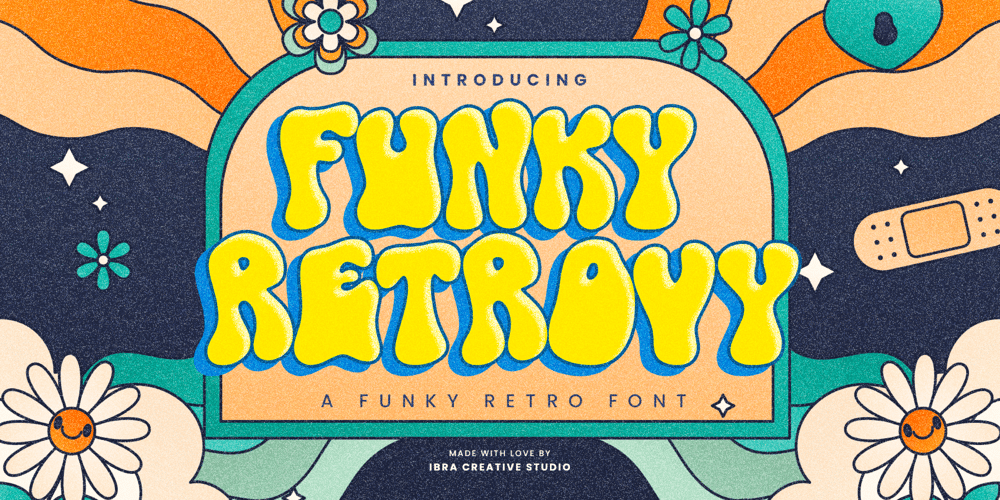
Funky Retrovy Font Family was designed by Roisatul Azizah and published by IbraCreative. Funky Retrovy contains 1 styles and family package options. Funky Retrovy is a groovy and energetic font that perfectly captures the essence of retro nostalgia. With its funky and whimsical letterforms, this typeface exudes a vibrant and carefree spirit reminiscent of the colorful era it celebrates. Each letter boasts bold and playful curves, inspired by the iconic designs of the past. Funky Retrovy adds a touch of fun and funkiness to any project, making it ideal for eye-catching posters, vibrant branding, and retro-themed party invitations.